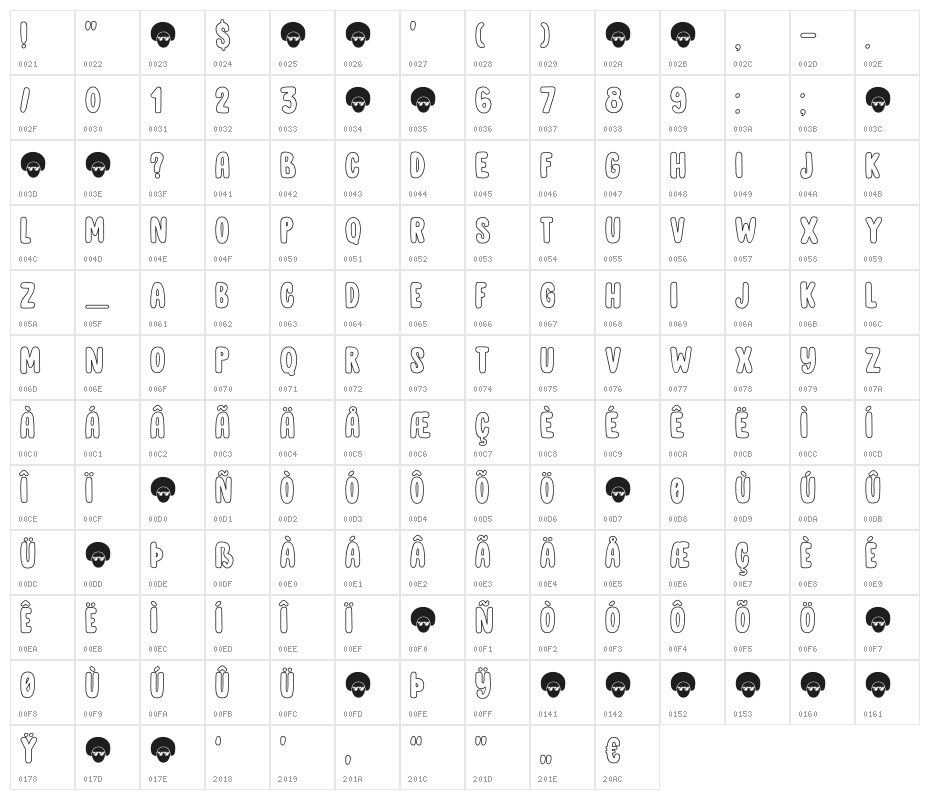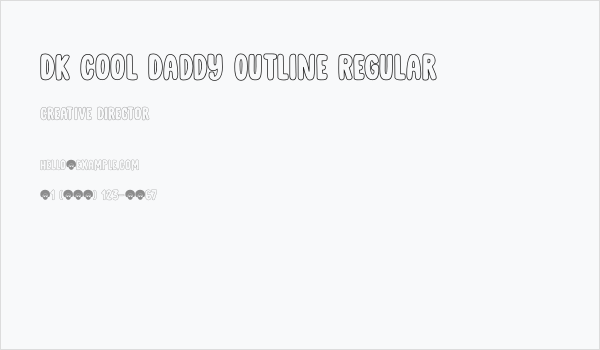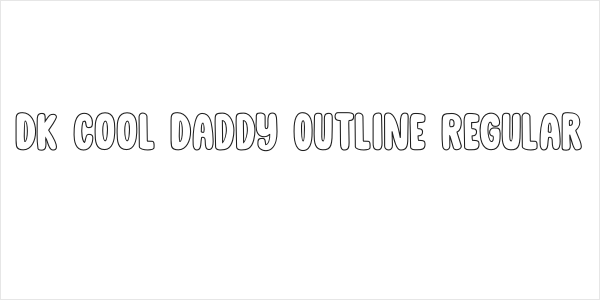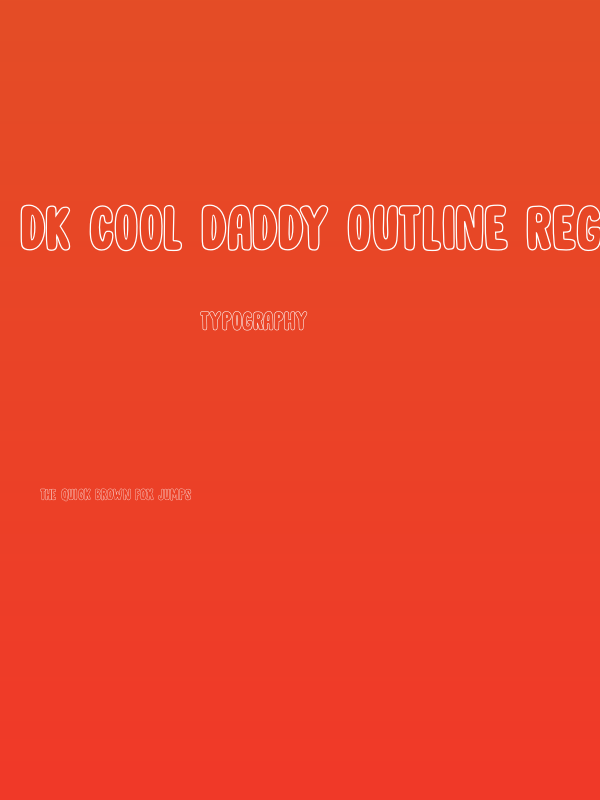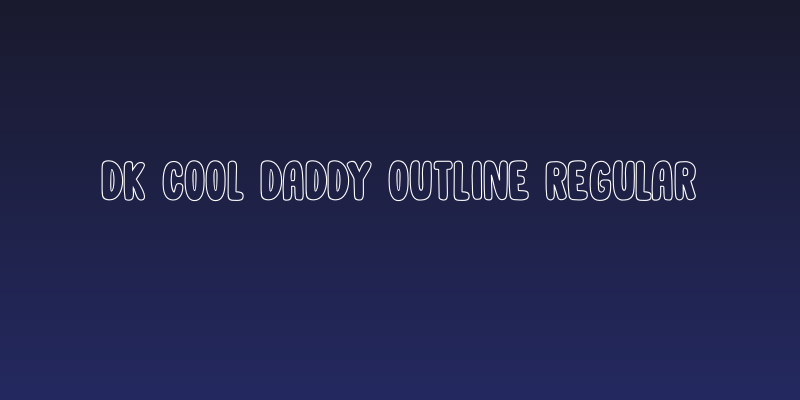
DK Cool Daddy Outline Regular Font
DK Cool Daddy Outline Regular Description
This playful and bold font features an outline style that gives it a unique and eye-catching appearance. The characters are rounded and have a bubble-like quality, making them stand out with a fun and energetic vibe. The uppercase and lowercase letters maintain a consistent style, while the numbers and special characters complement the overall design. The font's outline nature allows for creative color fills or layering effects, enhancing its versatility in various design projects.
| Overall Style | Playful, Fun, Energetic |
| Proposed Projects | Ideal for children's books, playful branding, party invitations, and eye-catching posters. |